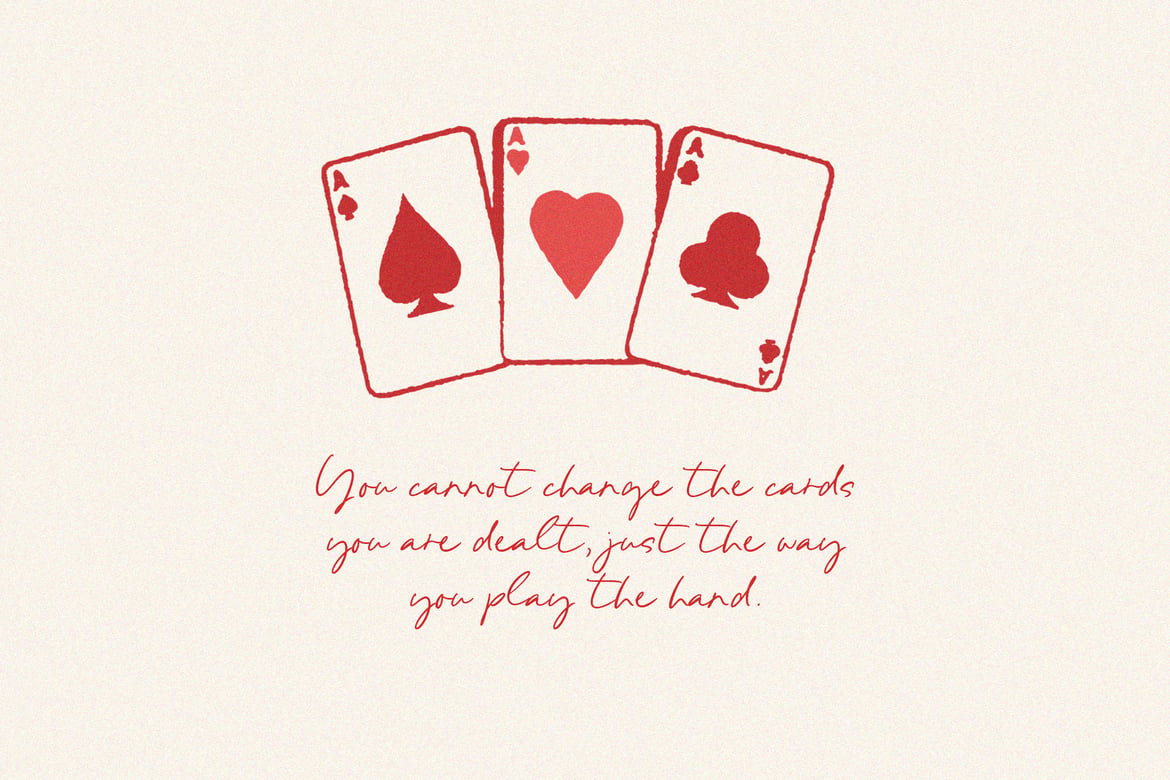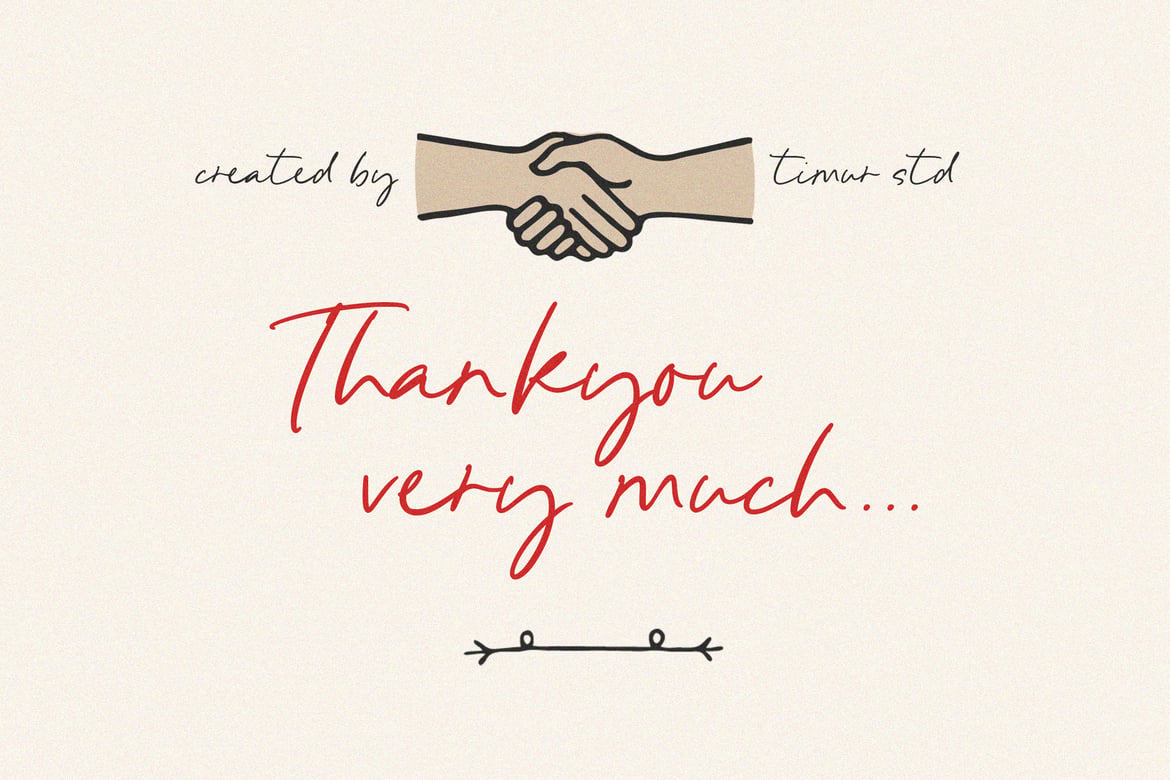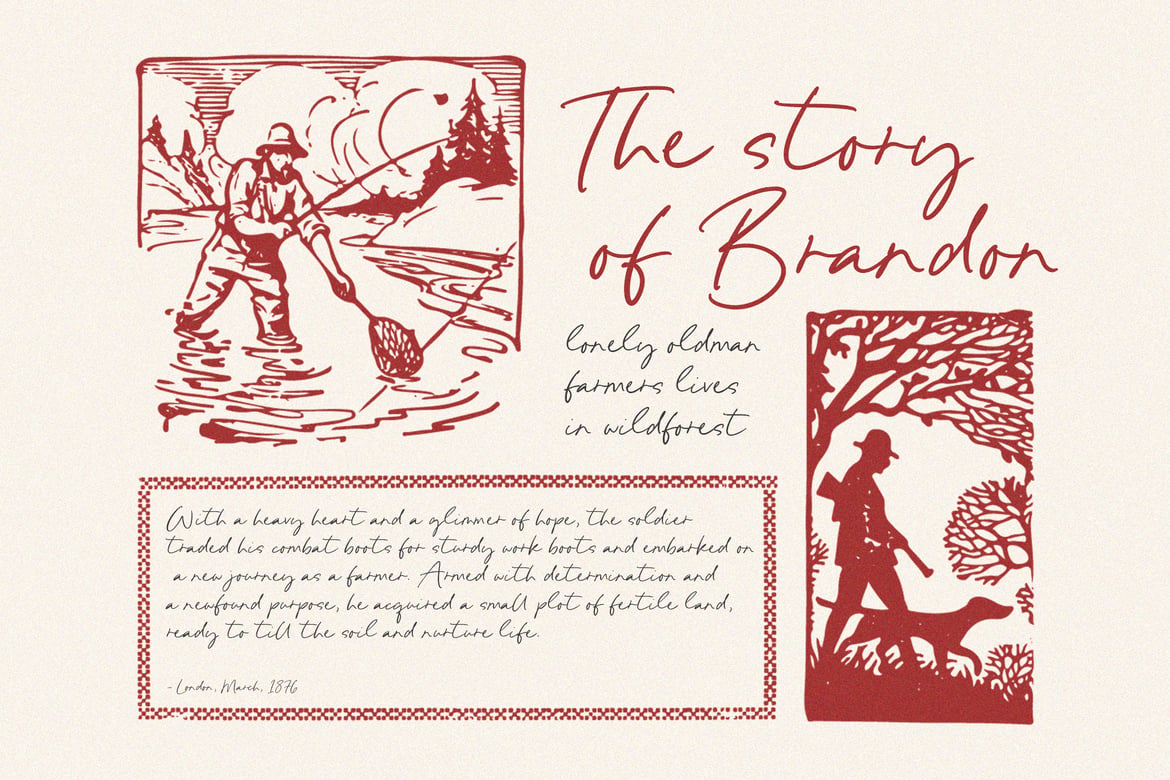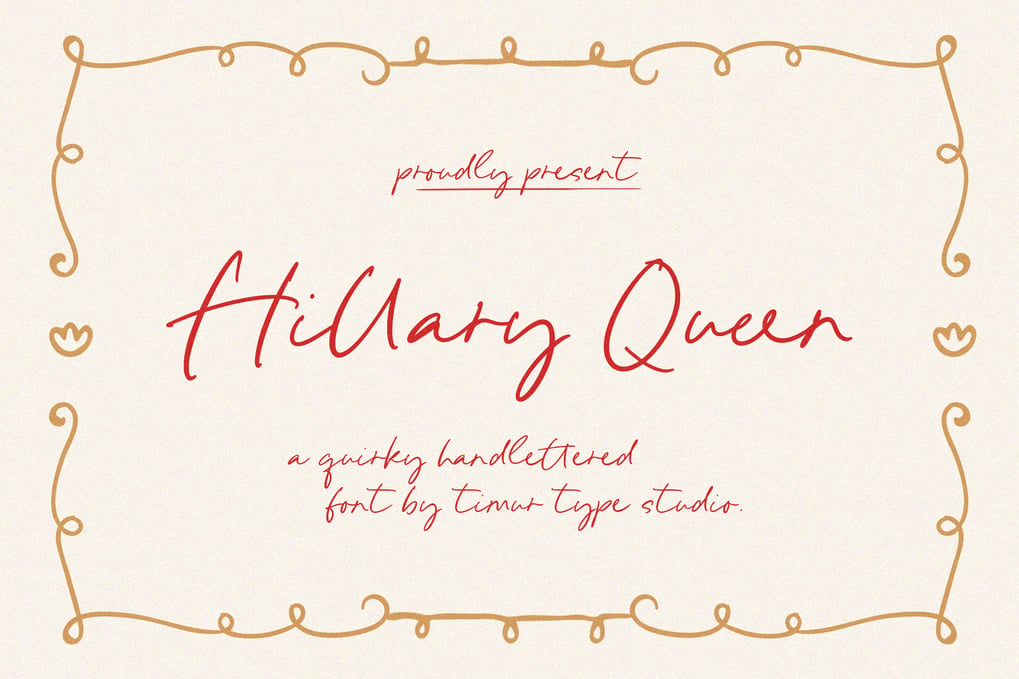
Hillary Queen – Quirky Handlettered Font TT
This font is a quirky and playful hand-lettered font that adds a whimsical touch to any project. With its uneven baseline and charming irregularities, this font embodies a sense of fun and creativity. Whether used for greeting cards, branding, or social media graphics, Hillary Queen brings a lighthearted and unique flair to your designs. Embrace its lively personality and infuse your creations with a dash of spontaneity and individuality.